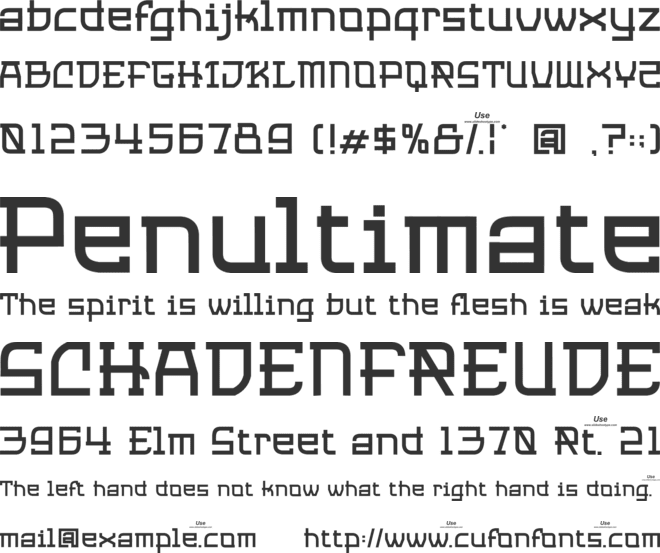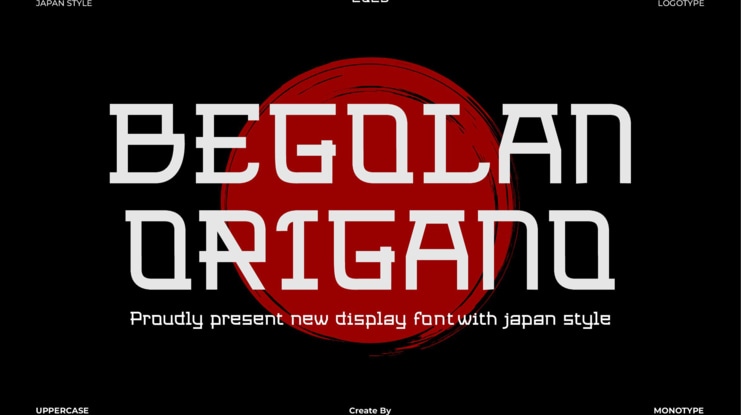
Begolan Origano Font
Introducing Begolan Origano is Display Font with japan style, modern, trendy, bouncy and cute display font. It has a unique character with wood theme. It is perfect to be combined with invitation card designs, company logos, movie titles, movie names, business cards, book titles, brand names and various other designs.